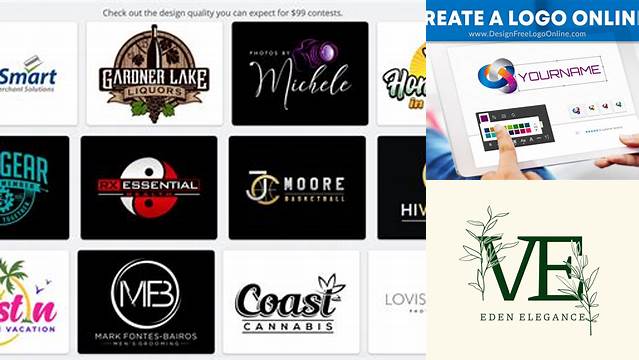
Create A Font Logo Online Free
Creating a logo can seem daunting, especially if you're on a budget. But guess what, guys? You can make a font logo online free! Yes, you heard that right. There are tons of fantastic tools and resources available that let you whip up a professional-looking logo without spending a dime. This article will guide you through the process, offering tips, tricks, and resources to help you create a font logo that truly represents your brand. So, let's dive in and explore the exciting world of free online logo creation!
1. Understanding Font Logos
Before we jump into the how-to, let’s get the basics down. What exactly is a font logo? Simply put, it’s a logo that primarily uses typography—your brand's name or initials crafted in a unique and visually appealing font. Think about some famous examples, like the Coca-Cola script or the Google logo. These logos rely heavily on font choice and arrangement to convey their brand identity. Making a font logo online free opens up a world of possibilities, allowing you to experiment with different styles and find the perfect fit for your brand. A well-designed font logo can be incredibly effective, conveying your brand's personality, values, and overall vibe. It’s all about selecting the right typeface and making it work for you.
2. Benefits of Using Font Logos
Why should you consider a font logo? Well, for starters, they're incredibly versatile. A font logo can be adapted for various uses, from website headers to business cards to social media profiles. Plus, they're often easier to create and modify compared to complex graphic-based logos. And the best part? You can make a font logo online free, saving you a ton of money on design costs. Font logos also offer a timeless quality. While graphic trends come and go, a well-chosen font can remain stylish and relevant for years to come. This makes them a great choice for brands looking to establish a long-lasting identity. So, if you're looking for a cost-effective, versatile, and timeless logo solution, a font logo might just be your answer.
3. Free Online Font Logo Makers
Okay, let’s get to the good stuff – the tools! There are numerous free online font logo makers out there, each with its own set of features and fonts. Some popular options include Canva, LogoMakr, DesignEvo, and Hatchful by Shopify. These platforms typically offer a user-friendly interface, a wide selection of fonts, and customization options to make a font logo online free that perfectly matches your brand. Canva, for example, is a favorite for its drag-and-drop functionality and vast library of design elements. LogoMakr is known for its simplicity and ease of use, while DesignEvo boasts a huge collection of logo templates. Hatchful by Shopify is particularly great for e-commerce businesses. Take some time to explore these different platforms and see which one feels like the best fit for you. Most offer free plans with enough features to create a stunning logo.
4. Choosing the Right Font
Font selection is crucial when creating a font logo. The font you choose will heavily influence how your brand is perceived. Different fonts evoke different emotions and associations. For example, a serif font (like Times New Roman) might convey a sense of tradition and reliability, while a sans-serif font (like Helvetica) can feel modern and clean. A script font (like Brush Script) can add a touch of elegance and creativity. When you make a font logo online free, you'll have access to a wide range of fonts, so take your time to experiment and find the perfect one. Consider your brand’s personality and target audience when making your selection. What message do you want to send? What feeling do you want to evoke? The right font can make all the difference.
5. Understanding Font Styles: Serif, Sans-Serif, Script
Let's delve a bit deeper into font styles. As mentioned earlier, serif fonts have small decorative strokes at the ends of the letters, giving them a more traditional and formal look. Sans-serif fonts, on the other hand, lack these strokes, resulting in a cleaner and more modern appearance. Script fonts mimic handwriting, adding a personal and elegant touch. Each style has its own strengths and weaknesses. Serif fonts can be great for conveying trustworthiness and authority, while sans-serif fonts are often preferred for their readability and versatility. Script fonts can be beautiful but might not be suitable for all brands. Understanding these nuances is essential when you make a font logo online free, as it helps you make informed decisions about your font choices. Think about the overall aesthetic you're aiming for and choose a font style that aligns with your vision.
6. Color Psychology in Logo Design
Color plays a huge role in logo design, and it's something you should carefully consider when you make a font logo online free. Colors evoke emotions and associations, so choosing the right palette can significantly impact how your logo is perceived. For example, blue often conveys trust and stability, while red can signify passion and energy. Green is often associated with nature and growth, while yellow can represent optimism and happiness. Consider your brand's personality and the message you want to convey when selecting your colors. You can use online color palette generators to find complementary colors that work well together. Aim for a color scheme that is visually appealing and reflects your brand's identity. Don't be afraid to experiment, but always keep your target audience and brand values in mind.
7. Importance of Negative Space in Logo Design
Negative space, also known as white space, is the empty area around and within your logo elements. It might seem like nothing, but it's a powerful design tool. Effective use of negative space can make your logo more visually appealing and memorable. It can also create subtle shapes or hidden meanings within your design. When you make a font logo online free, pay attention to the negative space. Avoid overcrowding your design with too many elements. Give your logo room to breathe. The right amount of negative space can enhance your logo's clarity and impact. Think about famous logos like FedEx, which cleverly incorporates an arrow within the negative space between the 'E' and 'x'. This subtle detail adds depth and interest to the design.
8. Adding Graphic Elements to Font Logos
While font logos primarily rely on typography, you can certainly enhance them by incorporating graphic elements. This could be a simple icon, a line, or a shape that complements your font choice. When you make a font logo online free, most platforms offer a library of graphic elements that you can use. However, be careful not to overdo it. The key is to add elements that enhance your logo without distracting from the font. A subtle graphic element can add visual interest and help your logo stand out. For example, if you're creating a logo for a coffee shop, you might add a small coffee bean icon next to your font. Just make sure the graphic element aligns with your brand's overall aesthetic and doesn't clash with your font.
9. Kerning and Letter Spacing in Font Logos
Kerning and letter spacing are essential aspects of typography that can significantly impact the look and feel of your font logo. Kerning refers to the adjustment of space between individual letters, while letter spacing is the overall space between all letters in a word or phrase. Proper kerning and letter spacing ensure that your logo is legible and visually appealing. When you make a font logo online free, most platforms offer tools to adjust these settings. Pay attention to how the letters interact with each other. Are they too close together? Too far apart? Experiment with different kerning and letter spacing values until you achieve a balanced and harmonious look. Subtle adjustments can make a big difference in the overall impact of your logo.
10. Using Gradients and Shadows in Font Logos
Gradients and shadows can add depth and dimension to your font logo, making it more visually interesting. A gradient is a gradual transition between two or more colors, while a shadow creates the illusion of depth by adding a darkened area behind the letters. When you make a font logo online free, consider experimenting with gradients and shadows to see how they can enhance your design. However, use these effects sparingly. Overusing gradients and shadows can make your logo look dated or cluttered. A subtle gradient or a soft shadow can add a touch of sophistication, but avoid overly complex or dramatic effects. The goal is to enhance your logo, not overwhelm it.
11. Font Logo Design for Different Industries
The ideal font logo design can vary depending on the industry you're in. What works for a tech company might not work for a bakery. When you make a font logo online free, consider the specific needs and expectations of your industry. For example, a law firm might opt for a serif font to convey a sense of tradition and authority, while a creative agency might choose a more modern and playful sans-serif font. A luxury brand might go for an elegant script font, while a tech startup might prefer a clean and minimalist design. Research logos in your industry to get a sense of what works and what doesn't. Tailor your font choices and overall design to resonate with your target audience and industry standards.
12. Creating a Font Logo for a Tech Company
For tech companies, a modern and minimalist font logo is often the way to go. Think clean sans-serif fonts, simple shapes, and a focus on readability. When you make a font logo online free for a tech company, consider using a bold and geometric font to convey innovation and strength. Colors like blue and gray are often associated with technology and can be a good choice. Avoid overly decorative or elaborate fonts, as they can appear outdated and unprofessional. The goal is to create a logo that is clean, modern, and memorable. Think about the logos of companies like Google, Apple, and Samsung – they all share a similar aesthetic that reflects the tech industry's focus on innovation and simplicity.
13. Font Logos for the Food and Beverage Industry
The food and beverage industry offers a lot of creative freedom when it comes to font logo design. You can go for a playful and whimsical font for a bakery, a classic and elegant font for a fine dining restaurant, or a bold and energetic font for a coffee shop. When you make a font logo online free for a food or beverage business, consider the type of food or drink you're offering and the overall atmosphere of your establishment. Colors like red and yellow can stimulate appetite, while green can convey freshness and natural ingredients. Don't be afraid to incorporate graphic elements that relate to your product, such as a coffee bean or a fork and knife. The key is to create a logo that is visually appealing and reflects the personality of your brand.
14. Designing Font Logos for Fashion Brands
Fashion brands often opt for elegant and sophisticated font logos. Think script fonts, serif fonts, and minimalist designs. When you make a font logo online free for a fashion brand, consider using a font that conveys style, luxury, and attention to detail. Colors like black, white, and gold are often associated with high-end fashion and can be a good choice. Pay attention to kerning and letter spacing to ensure that your logo is legible and visually appealing. A well-designed font logo can elevate a fashion brand's image and create a sense of exclusivity. Think about the logos of brands like Chanel, Dior, and Gucci – they all exude elegance and sophistication through their typography.
15. Font Logos for Healthcare and Wellness Businesses
For healthcare and wellness businesses, a font logo should convey trust, reliability, and professionalism. Clean sans-serif fonts and calming colors like blue and green are often a good choice. When you make a font logo online free for a healthcare or wellness business, consider using a font that is easy to read and understand. Avoid overly decorative or playful fonts, as they can undermine the seriousness of your brand. The goal is to create a logo that inspires confidence and trust in your services. Think about the logos of hospitals, clinics, and wellness centers – they often share a similar aesthetic that reflects the industry's focus on health and well-being.
16. Mobile-Friendly Font Logo Design
In today's digital age, it's crucial to ensure that your logo looks good on mobile devices. When you make a font logo online free, consider how your logo will appear on smaller screens. Will it be legible? Will the colors still pop? A simple and scalable design is essential for mobile-friendliness. Avoid overly complex logos with too many details, as they can become cluttered and difficult to read on small screens. Choose a font that is clear and legible, even at small sizes. Test your logo on different devices to ensure that it looks good across the board. A mobile-friendly logo is essential for reaching a wider audience and maintaining a consistent brand image.
17. Scalable Vector Graphics (SVG) for Font Logos
When you make a font logo online free, it's important to save your logo in a scalable vector graphic (SVG) format. SVG is a vector-based file format that allows your logo to be scaled to any size without losing quality. This is crucial for ensuring that your logo looks sharp and crisp on all devices and platforms. Unlike raster-based formats like JPEG and PNG, SVG files are not pixelated when scaled up. This means your logo will always look its best, whether it's displayed on a small mobile screen or a large billboard. Most online logo makers offer the option to download your logo in SVG format, so be sure to take advantage of this feature.
18. Font Logo Design Trends
Like any design field, logo design has its trends. Staying up-to-date with the latest trends can help you make a font logo online free that feels modern and relevant. Some current trends include minimalist designs, geometric fonts, bold typography, and the use of negative space. However, it's important to balance trends with timelessness. While it's good to be aware of current styles, avoid designing a logo that is too trendy, as it may quickly look dated. Focus on creating a logo that is both visually appealing and representative of your brand's identity. A well-designed logo should have staying power, even as design trends evolve.
19. Avoiding Common Font Logo Mistakes
When you make a font logo online free, it's easy to fall into common design pitfalls. One mistake is choosing a font that is too trendy or difficult to read. Another is overcrowding your logo with too many elements or colors. Poor kerning and letter spacing can also detract from your logo's impact. To avoid these mistakes, keep your design simple and clean. Choose a font that is legible and reflects your brand's personality. Pay attention to the details, such as kerning and color choices. Get feedback from others to get a fresh perspective on your design. By avoiding these common mistakes, you can create a font logo that is professional and effective.
20. Testing Your Font Logo
Before you finalize your font logo, it's crucial to test it in different contexts. How does it look on your website? On business cards? On social media? When you make a font logo online free, make sure to preview it in various sizes and formats. Test it on different devices to ensure it looks good on both desktop and mobile. Get feedback from your target audience to see how they perceive your logo. A logo that looks great in isolation might not work well in real-world applications. Testing your logo helps you identify any potential issues and make necessary adjustments before you launch your brand.
21. Font Logo Mockups
Creating mockups is a great way to visualize how your font logo will look in different contexts. Mockups are realistic representations of your logo applied to various products and materials, such as business cards, websites, and merchandise. When you make a font logo online free, you can use online mockup generators to create realistic previews of your logo in action. This helps you see how your logo will look in the real world and make any necessary adjustments. Mockups can also be useful for showcasing your logo to potential clients or stakeholders. They provide a tangible representation of your brand identity and help you communicate your vision effectively.
22. Font Logo and Brand Identity
Your font logo is a crucial part of your brand identity. It's often the first thing people see when they interact with your brand, so it's important to make a good impression. When you make a font logo online free, consider how it aligns with your brand's overall personality and values. Your logo should reflect your brand's mission, vision, and target audience. It should also be consistent with your brand's other visual elements, such as colors, fonts, and imagery. A strong brand identity creates a cohesive and memorable experience for your customers. Your logo is a key component of this identity, so invest the time and effort to get it right.
23. Font Logo Copyright and Trademark
Once you've made a font logo online free, it's important to consider copyright and trademark issues. Copyright protects your logo's design, while a trademark protects your brand name and logo from being used by others. If you plan to use your logo commercially, it's advisable to register it as a trademark. This gives you legal protection and prevents others from using a similar logo in your industry. Before registering your logo, conduct a trademark search to ensure that it's not already in use. Copyright and trademark laws can be complex, so it's a good idea to consult with an attorney if you have any questions or concerns.
24. Font Logo Inspiration
Sometimes, the best way to make a font logo online free is to draw inspiration from existing logos. Look at logos in your industry and beyond. What works well? What doesn't? What styles resonate with you? Online platforms like Dribbble and Behance are great resources for finding logo design inspiration. Pay attention to font choices, color palettes, and overall design aesthetics. However, avoid directly copying other logos. Use inspiration as a starting point, but always strive to create a unique and original design that represents your brand. The goal is to create a logo that stands out and makes a lasting impression.
25. Font Logo Evolution and Redesign
Over time, your brand may evolve, and your font logo may need to evolve with it. A logo redesign can be a way to refresh your brand's image and communicate a new direction or focus. When you make a font logo online free, you have the flexibility to make changes and updates as needed. However, it's important to approach a logo redesign strategically. Avoid making drastic changes that could confuse or alienate your customers. A subtle refresh is often more effective than a complete overhaul. Consider what elements of your current logo are working well and what could be improved. A well-executed logo redesign can help your brand stay relevant and competitive.
26. The Importance of Simplicity in Font Logos
Simplicity is key when you make a font logo online free. A simple logo is easier to remember, more versatile, and more effective at conveying your brand's message. Avoid cluttering your logo with too many elements or colors. Choose a font that is clean and legible. Focus on creating a design that is clear, concise, and impactful. Think about some of the world's most iconic logos – they are often simple and memorable. A simple logo can be easily reproduced in various sizes and formats, making it ideal for use across different platforms and applications. It also ensures that your logo remains recognizable and effective over time.
27. Font Logo File Formats: JPEG, PNG, SVG
When you make a font logo online free, you'll typically have the option to download it in different file formats. JPEG, PNG, and SVG are the most common formats, and each has its own strengths and weaknesses. JPEG is a raster-based format that is ideal for photographs and images with complex color gradients. However, JPEGs can lose quality when scaled up. PNG is also a raster-based format, but it supports transparency and lossless compression, making it a good choice for logos with solid colors and sharp lines. SVG, as mentioned earlier, is a vector-based format that can be scaled to any size without losing quality. For font logos, SVG is generally the best choice, as it ensures that your logo looks crisp and clear on all devices and platforms.
28. Using Font Pairing for a Unique Logo
Font pairing is the art of combining two or more fonts in a harmonious and visually appealing way. When you make a font logo online free, you can use font pairing to create a unique and memorable design. A common approach is to pair a display font (a font that is designed to be used in headlines and logos) with a more legible body font. For example, you might pair a bold and modern sans-serif font with a classic serif font. The key is to choose fonts that complement each other and create a balanced and cohesive look. Experiment with different font combinations to see what works best for your brand. A well-executed font pairing can add depth and personality to your logo.
29. Getting Feedback on Your Font Logo Design
Feedback is invaluable when you make a font logo online free. Before you finalize your design, get feedback from others – friends, family, colleagues, or even your target audience. Ask them what they think of your logo. Does it convey the message you want to send? Is it memorable? Is it visually appealing? Constructive criticism can help you identify potential weaknesses in your design and make necessary improvements. Be open to feedback and willing to make changes. It's better to address any issues early on than to launch a logo that doesn't resonate with your audience.
30. Finalizing and Launching Your Font Logo
Once you've made a font logo online free that you're happy with, it's time to finalize it and launch it. Make sure you have your logo in all the necessary file formats (SVG, PNG, JPEG) and sizes. Create a brand style guide that outlines the proper usage of your logo, including color palettes, fonts, and spacing. Incorporate your logo into your website, social media profiles, and marketing materials. Announce your new logo to your audience and celebrate your brand's visual identity. Your logo is a valuable asset, so take pride in it and use it consistently to build brand recognition and loyalty.